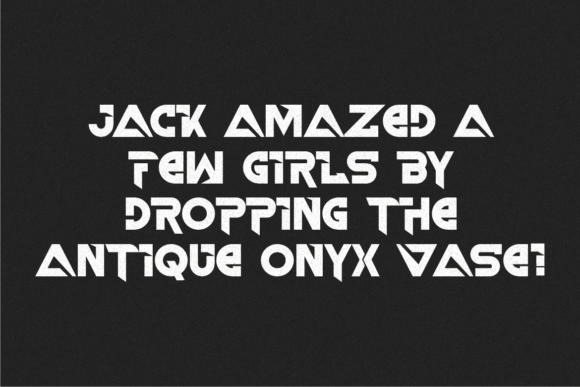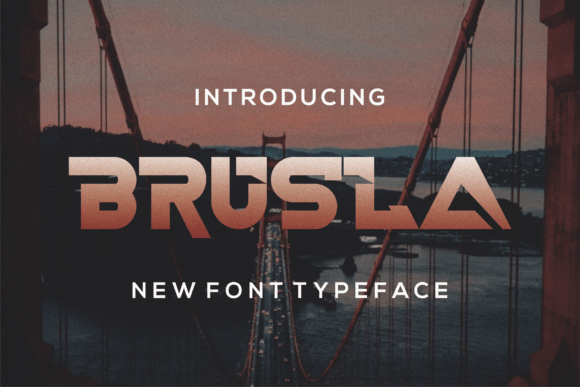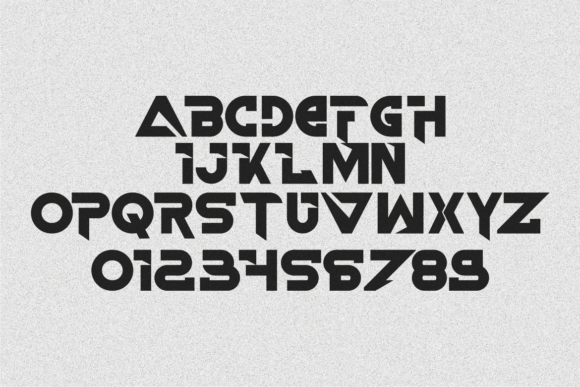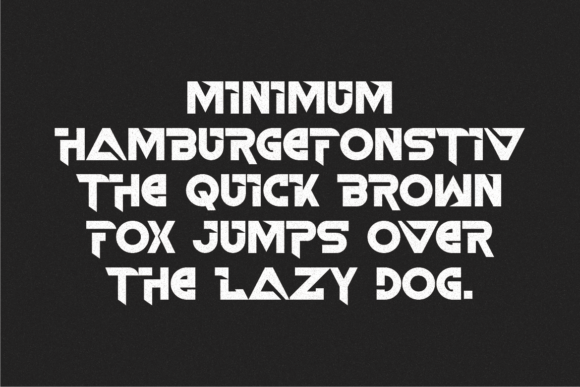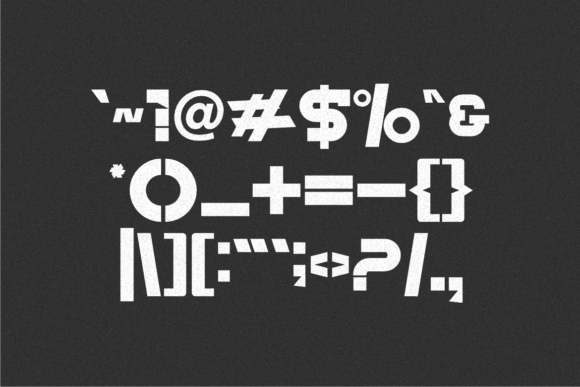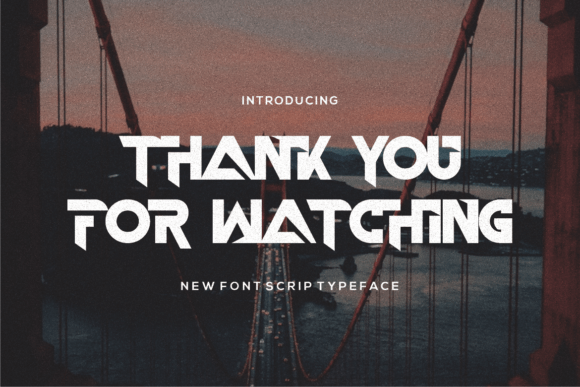
Brusla Font
BRUSLA FONT SPECIMEN
Brusla is a unique slab serif font that feels beautiful, bold, and modern. This font is perfectly suited for a wide variety of projects, such as signature, stationery, logo, wedding, typography quotes, magazine or book cover, website header, clothing, branding, packaging design, and more.